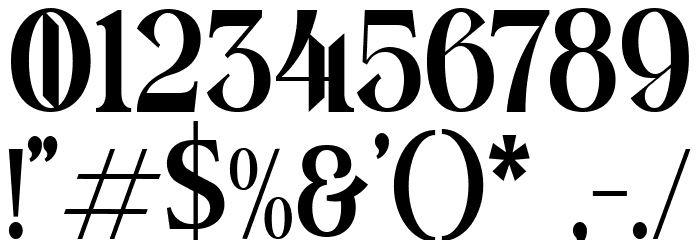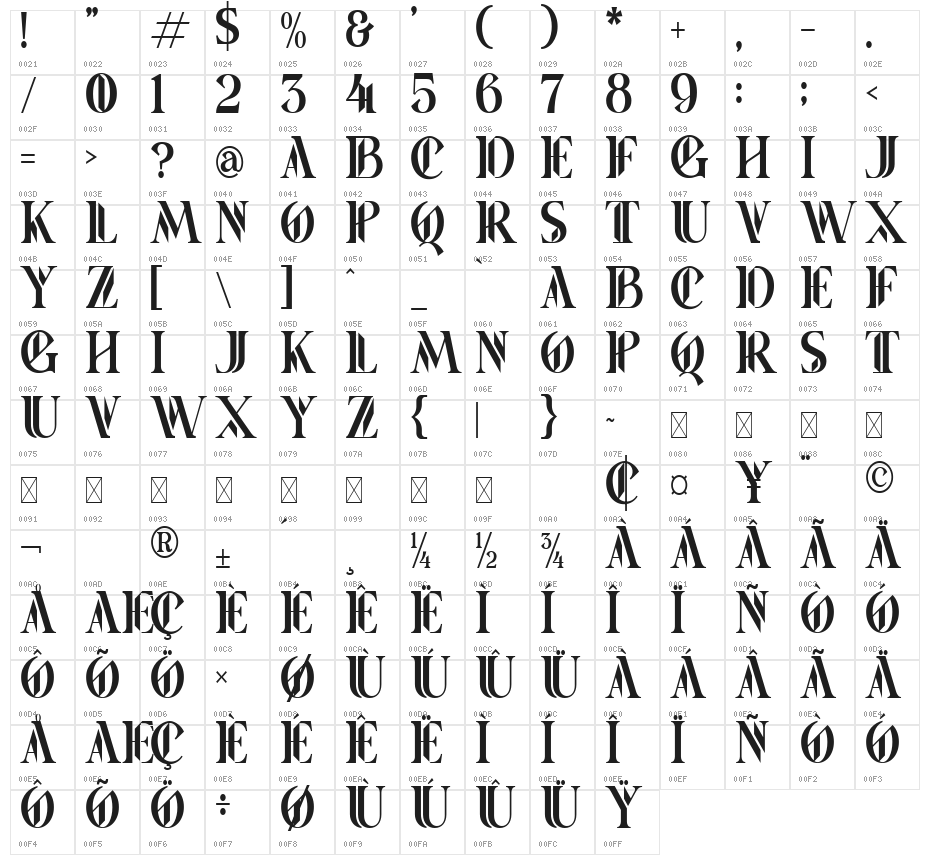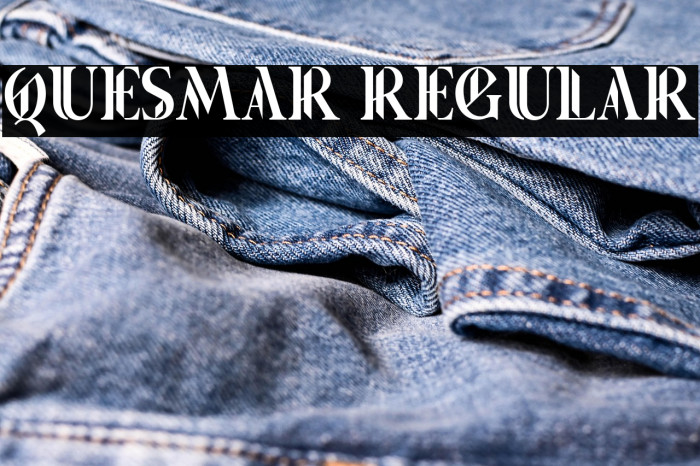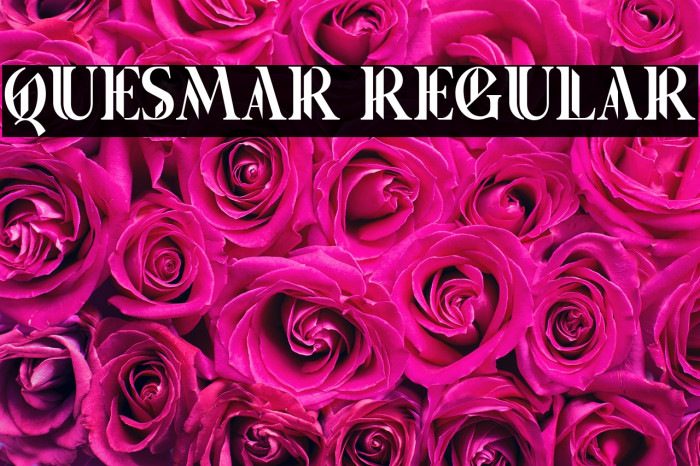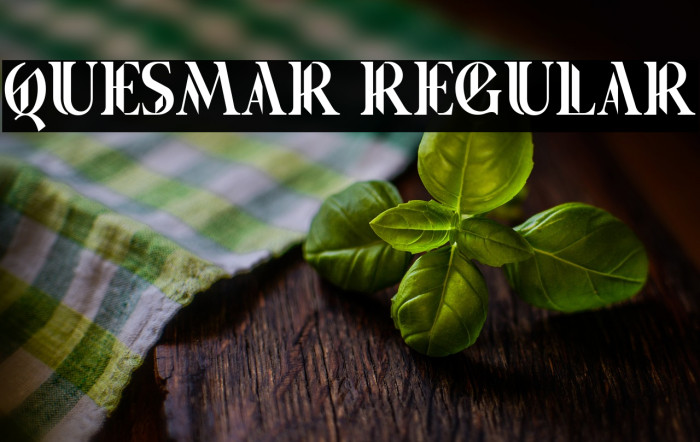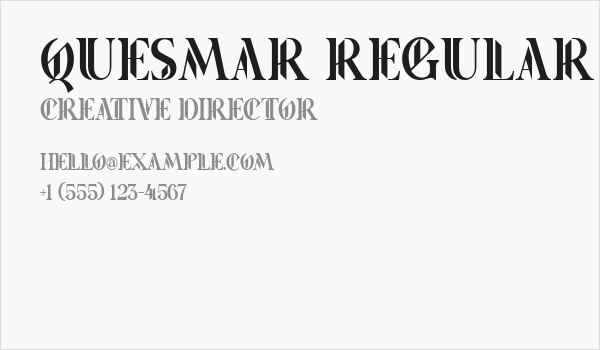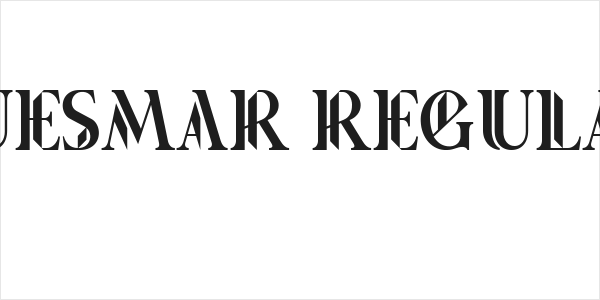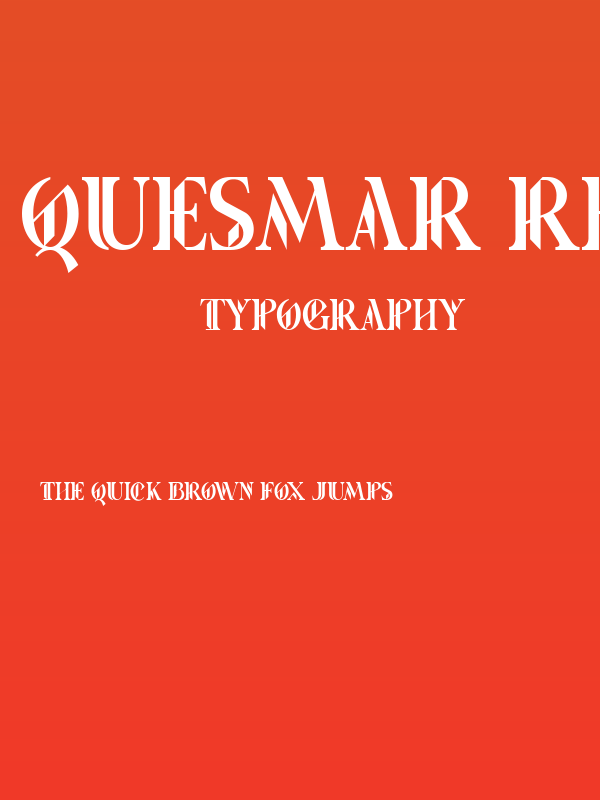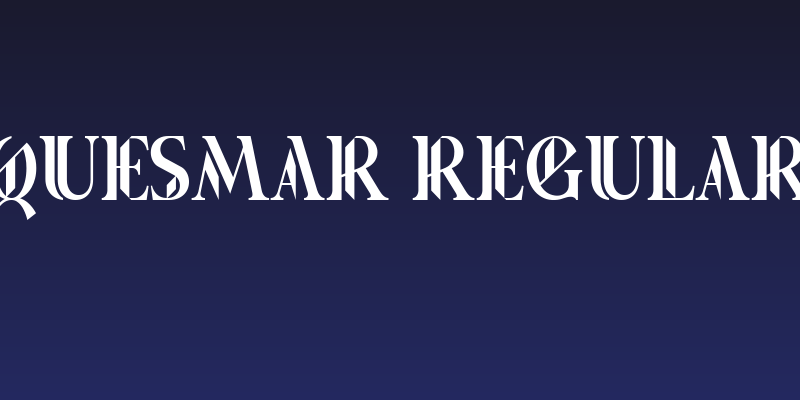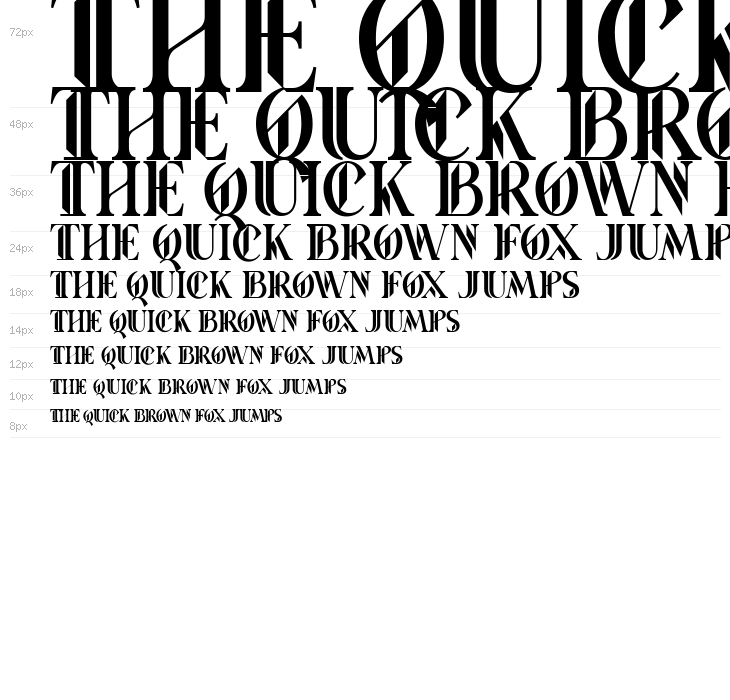
Quesmar Regular Font
Quesmar Regular Description
This font features a bold and striking design with a modern twist on traditional serif elements. The characters are characterized by sharp, angular serifs and a high contrast between thick and thin strokes, giving it a dramatic and eye-catching appearance. The uppercase letters are particularly distinctive, with unique shapes that add a sense of elegance and sophistication. The numbers and special characters maintain the same stylistic elements, ensuring consistency throughout. This font is ideal for making a strong visual impact, suitable for various creative applications.
Use CaseHeadlines, Logos, Display
Proposed ProjectsIdeal for branding, poster design, book covers, and any project requiring a bold, sophisticated typeface.